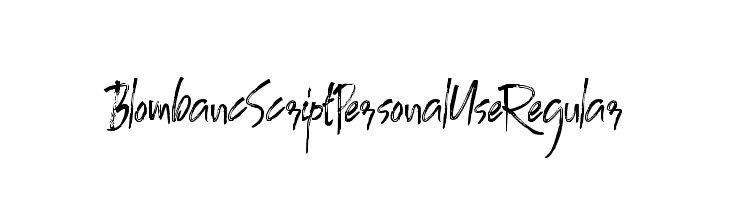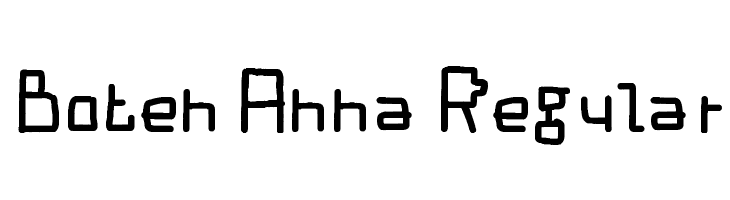
A rugged, distressed font with a Wild West aesthetic.
A futuristic, geometric font with sharp angles and a mechanical feel.
A dynamic, brush-style font with bold, expressive strokes.
A bold, 3D geometric font with sharp, angular edges and a modern industrial look.
An elegant italic serif font with a classic and sophisticated style.
A decorative font with characters inside floral motifs, ideal for creative projects.
A bold, futuristic font with geometric and angular design.
A bold, geometric font with characters enclosed in rectangular frames, offering a modern and structured look.
A modern, semi-bold italic sans-serif font with clean lines and dynamic style.